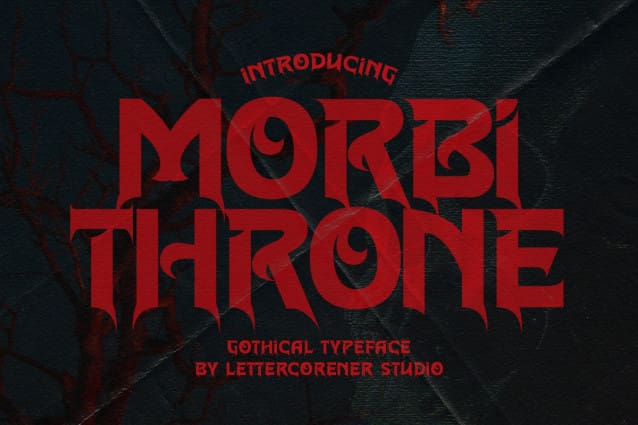
Morbithrone Font
Morbithrone Font.  It brings the sophistication of gothic typography into horror, dark, and fantasy visual design. Morbithrone Font is made even more versatile with the addition of stylistic alternates that you can mix and match to make your designs stand out.